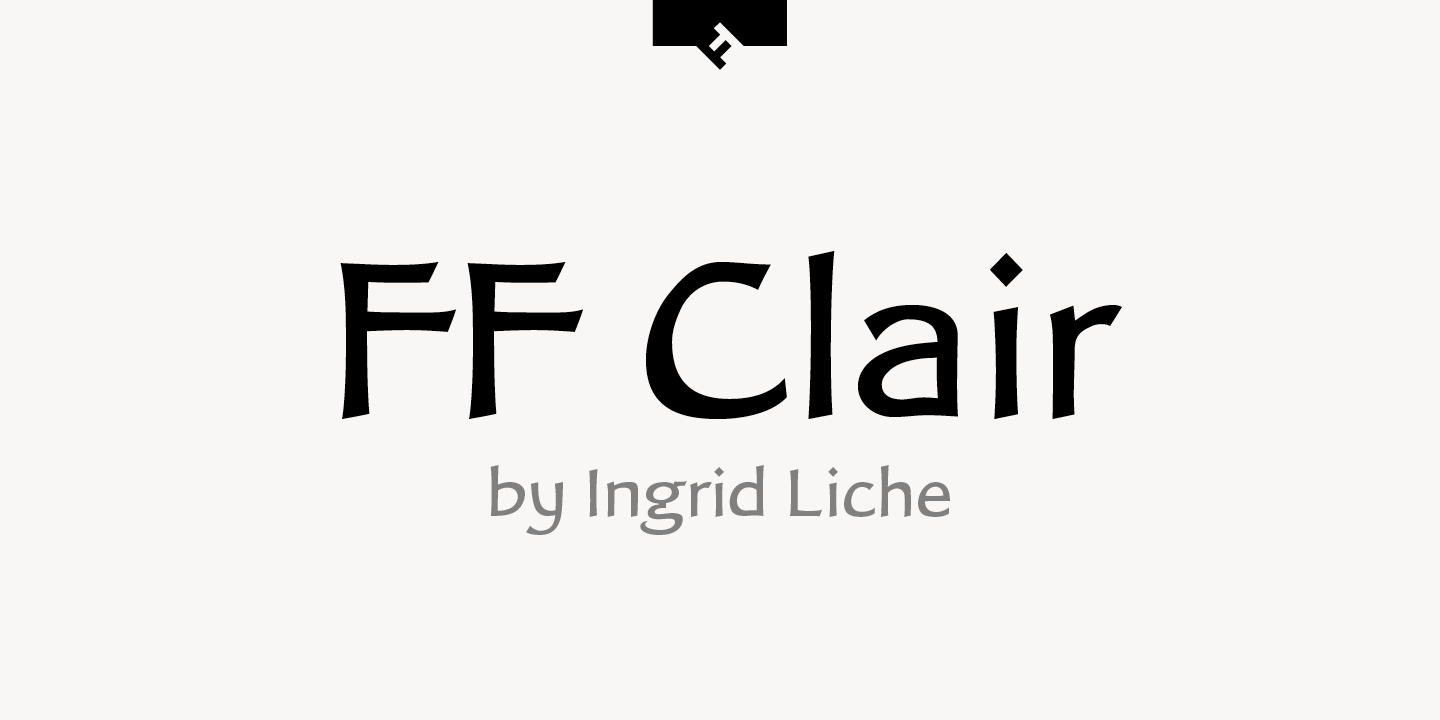
The FF Clair Font excels in various design applications including elegant editorial layouts, sophisticated magazine typography, luxury brand communications, refined publishing projects, premium cosmetics packaging, high-end fashion marketing, cultural institution branding, artistic gallery materials, upscale hospitality design, and distinguished corporate communications that demand crystal-clear elegance and luminous sophistication.
What makes the FF Clair Font exciting is its masterful achievement of typographic clarity through luminous letterforms that embody the French concept of "clair" - meaning clear, bright, and transparent - creating typography that illuminates content with exceptional readability and sophisticated grace. This typeface demonstrates remarkable balance between classical elegance and contemporary clarity, featuring carefully refined characters that enhance text comprehension while maintaining distinctive visual personality. The font's crystalline character makes it perfect for brands seeking to communicate transparency, refinement, and intellectual clarity through typography that literally brightens communications with its inherent luminosity.
The FF Clair Font family typically includes comprehensive weight variations from light to bold, featuring elegant italic styles with enhanced flourishes and extended character sets optimized for multilingual publishing applications. These family options often include small caps, old-style numerals, sophisticated ligatures, and refined punctuation that maintain the luminous aesthetic while providing designers with complete typographic solutions for complex editorial and branding projects requiring exceptional clarity.
Publishing professionals and luxury brand creators consistently choose FF Clair Font Free Download for projects requiring typography that combines exceptional readability with sophisticated visual appeal. This typeface delivers outstanding performance in premium editorial design, luxury marketing, and cultural communications where establishing intellectual credibility and maintaining visual elegance is essential for audience engagement. The font's clarity-focused design makes it particularly effective for multilingual applications and complex text hierarchies. Download FF Clair Font Free Download today to access this luminous typeface that transforms communications with its crystalline clarity and sophisticated elegance, creating compelling reading experiences that demonstrate both intellectual refinement and contemporary design excellence while maintaining exceptional functionality across diverse applications.